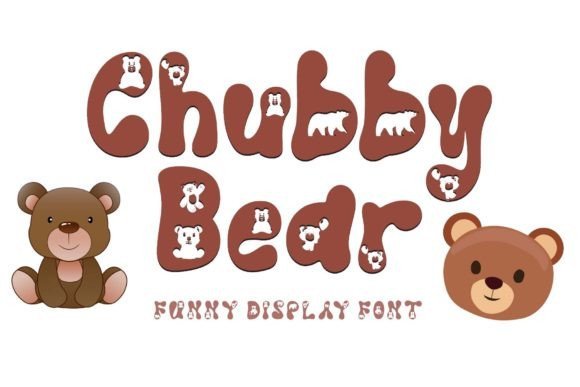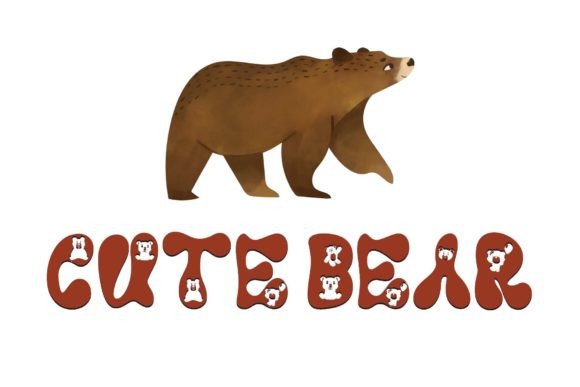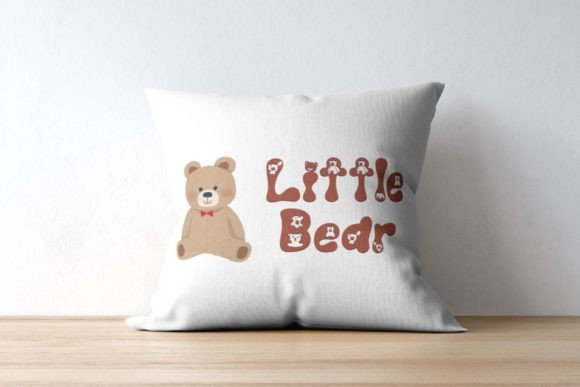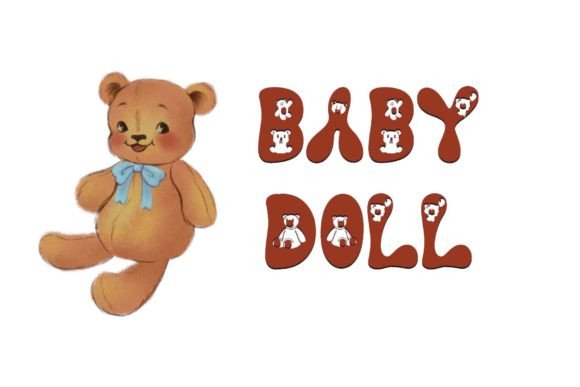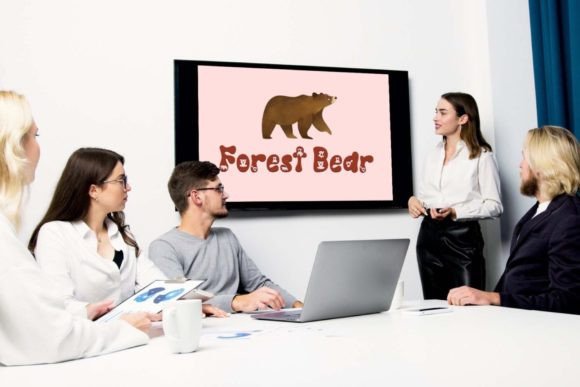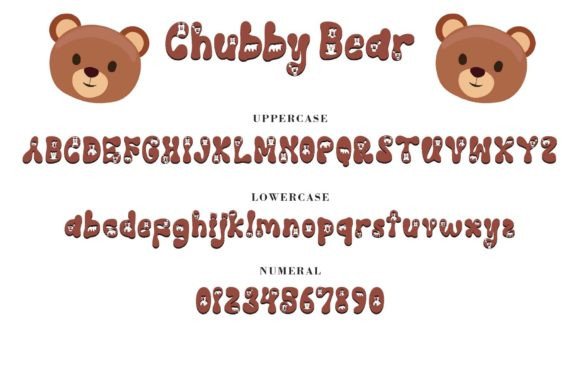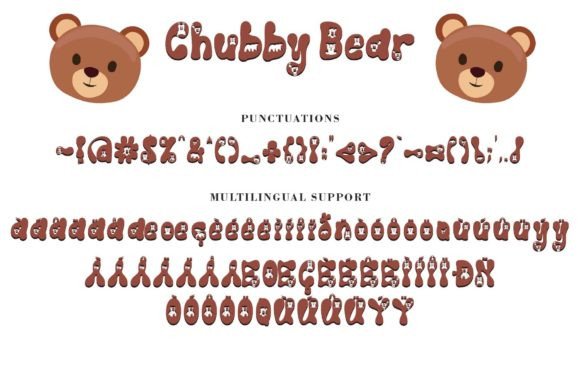
Getting Creative with the Perfect Font
Do you ever have one of those moments where you’re brainstorming a new project and the perfect font just pops into your head? For designers, finding that elusive font can be the difference between a project that wows and one that falls flat. And, for those in the know, the Chubby Bear Font is about to become your new go-to.
This adorable display font is designed to bring a smile to your face and a touch of whimsy to your designs. With its playful, rounded features, Chubby Bear Font is perfect for posters, banners, branding, and all sorts of fun projects that need a little extra personality. Whether you’re working on a summer-themed campaign or creating a logo for a kids’ brand, this font is sure to bring a touch of magic to your work.
Chubby Bear Font Key Features
- Font Family: Chubby Bear Font is a fun and playful sans-serif font family.
- Character Count: The font family includes over 300 characters, including uppercase and lowercase letters, numbers, and punctuation marks.
- Resolution: The font is designed to be high-resolution, making it perfect for use in print and digital applications at resolutions up to 300 DPI.
- Unique Characteristics: The Chubby Bear Font features a unique, rounded design with a friendly and approachable feel, making it ideal for use in children’s books, educational materials, and other applications where a playful tone is desired.
- Size: The font is available in a range of sizes, from 8pt to 72pt, making it versatile for use in a variety of contexts.
Chubby Bear Font Review
I’ve had the chance to work with the Chubby Bear Font, and I must say it’s an interesting addition to any design project. ✨ The rounded edges and chunky strokes give it a playful, childlike feel that can be perfect for certain themes or styles. The font also comes in a range of weights and styles, which can be really useful for designers who want to add some variety to their designs.
One of the things that works particularly well is the font’s legibility. ✨ Even at smaller sizes, the letters remain clear and easy to read, which is a big plus for designers who need to use the font for body text or other large blocks of copy.
While the Chubby Bear Font has a lot to offer, there are some limitations to be aware of. ⚠️ For one, the font’s chunky design can make it difficult to use for more formal or professional projects. Additionally, the font’s rounded edges can sometimes make it hard to read at very small sizes or in low-contrast situations.
- Limited versatility – may not be suitable for formal or professional projects
- Can be difficult to read at very small sizes or in low-contrast situations
Overall, the Chubby Bear Font is a fun and playful addition to any design project, but it may not be the best choice for every situation. With a little creativity and planning, it can be a great way to add some personality to your designs.
Tips for Getting the Most Out of the Chubby Bear Font
The Chubby Bear Font is a playful and whimsical font that works well for children’s books, party invitations, and other creative projects.
Use the Chubby Bear Font in combination with bold colors and fun illustrations to create a lively and engaging design.
Experiment with different font sizes and styles to add visual interest to your design.
The Chubby Bear Font is commonly used for:
- Children’s books and educational materials.
- Party invitations and decorations.
- Marketing materials
Alternatives to Chubby Bear Font for Designers
Chubby Bear Font is a playful and childlike font, but sometimes designers need alternatives to create different moods and styles. Here are a few options: